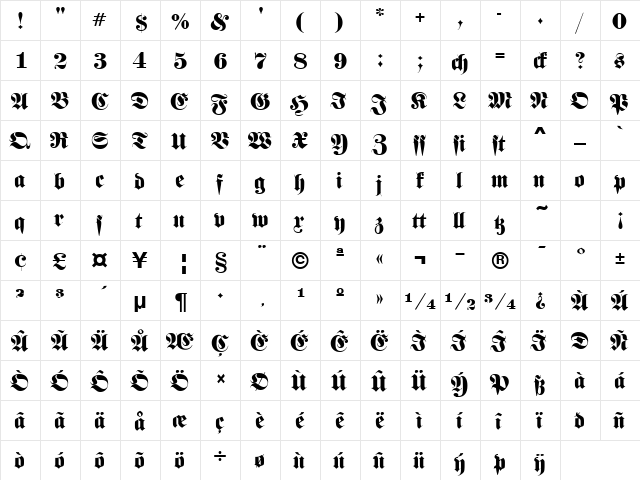
Frankenstein SF Regular
Design Context for Frankenstein SF Typeface
Frankenstein SF is a composed and adaptable typeface that performs quietly and consistently across a wide range of design contexts.